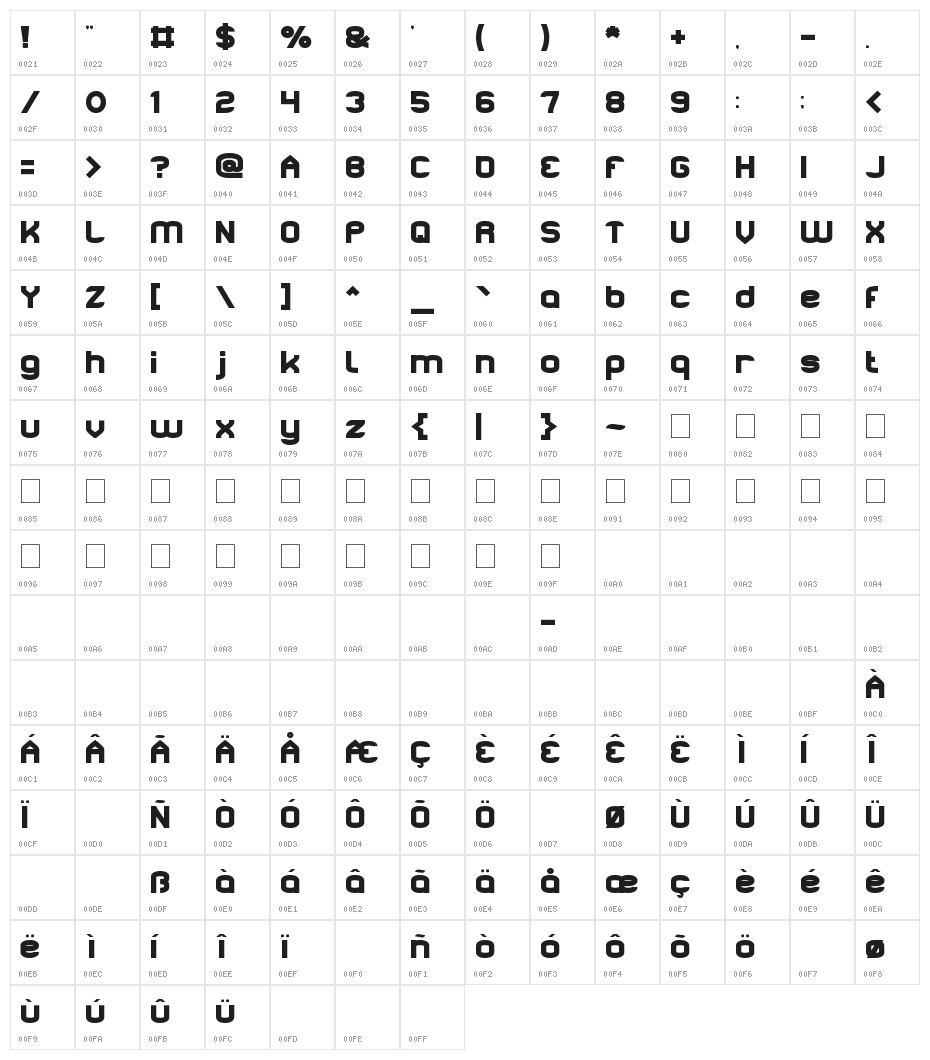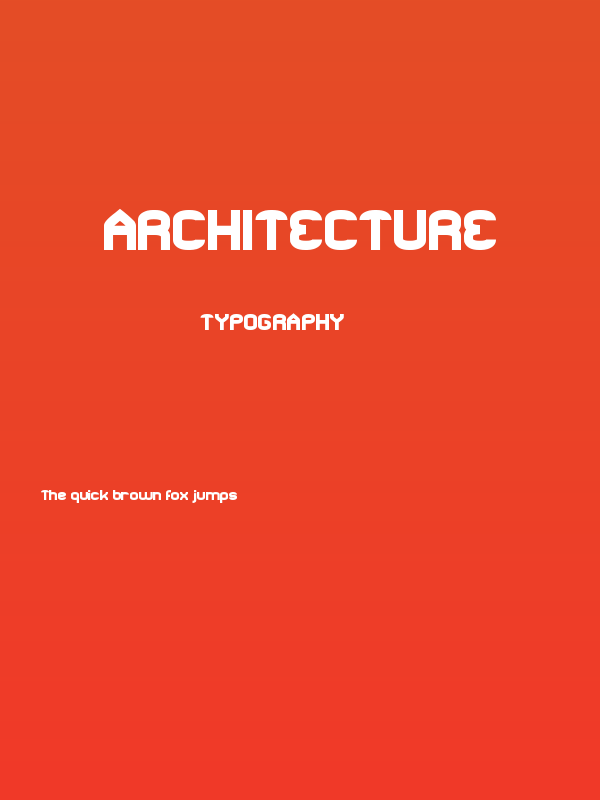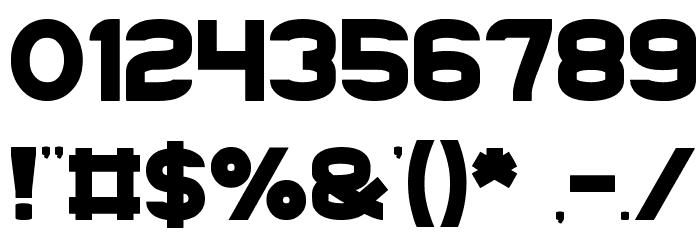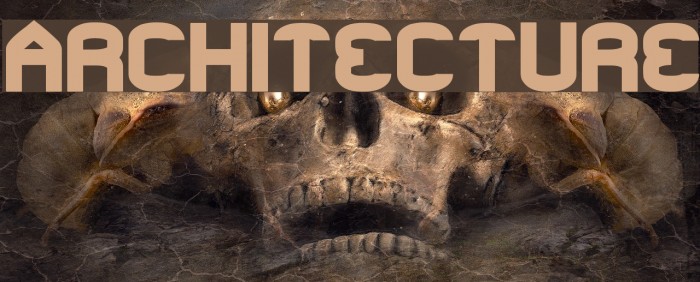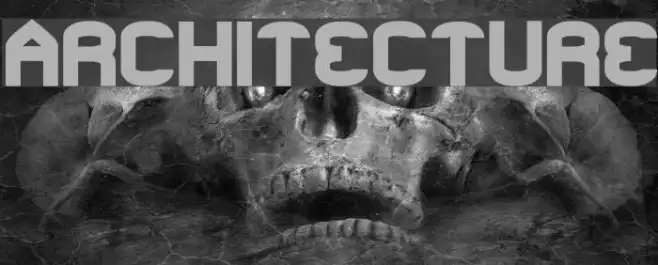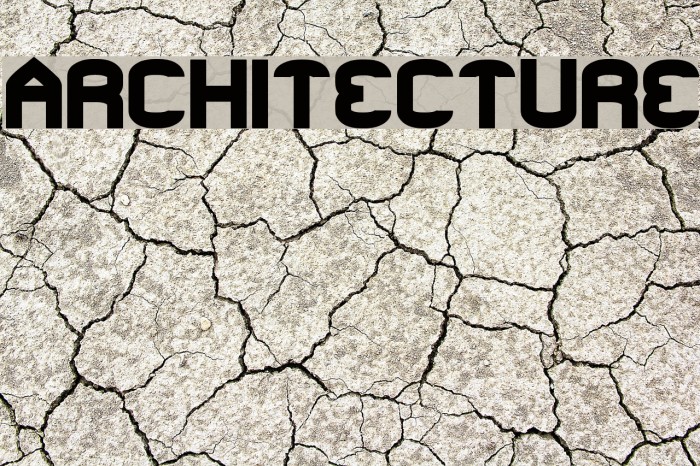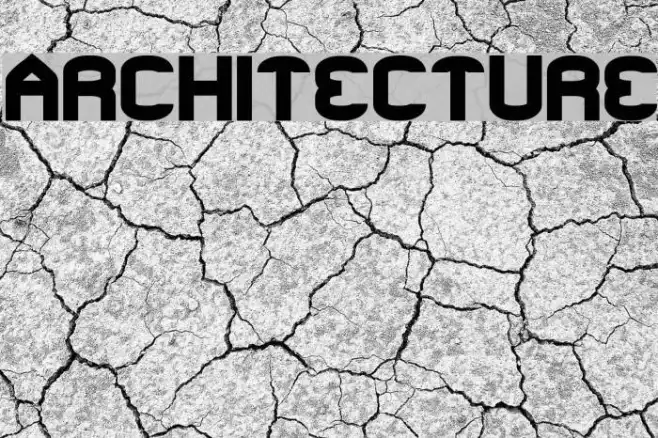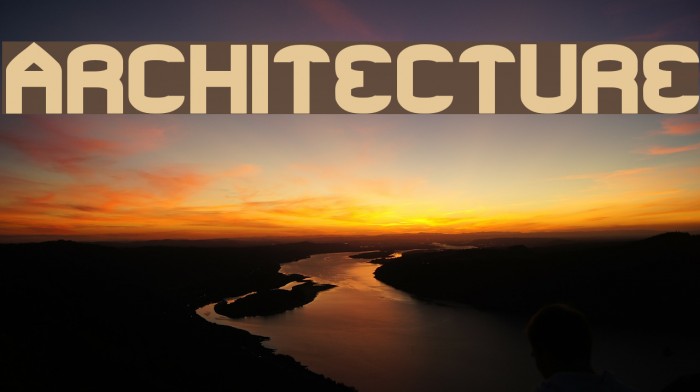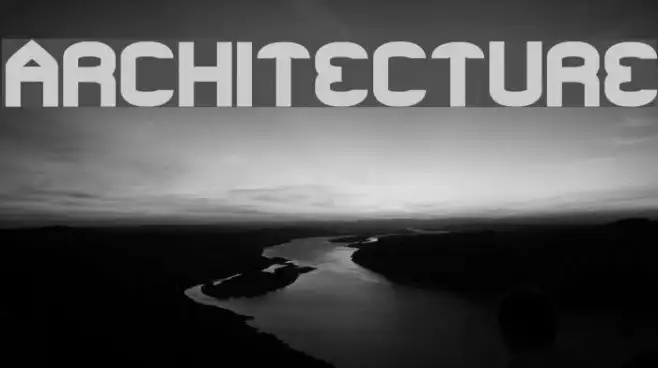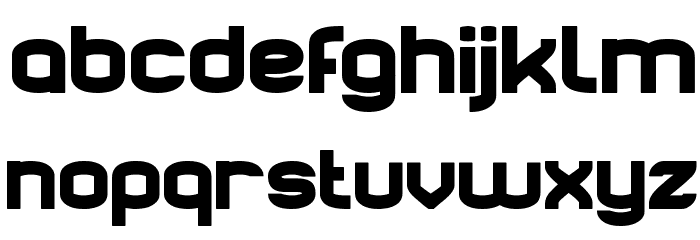
ARCHITECTURE Font
ARCHITECTURE Description
This font features a bold, geometric style with a modern and futuristic aesthetic. The characters are constructed with a uniform stroke width, giving them a strong and cohesive appearance. The uppercase letters have a distinct architectural feel, with sharp angles and clean lines, while the lowercase letters maintain a similar structure, offering a consistent look across different text cases. The numerals are clear and legible, designed to match the overall boldness of the font. Special characters are included, maintaining the same geometric style, making this font versatile for various design needs.